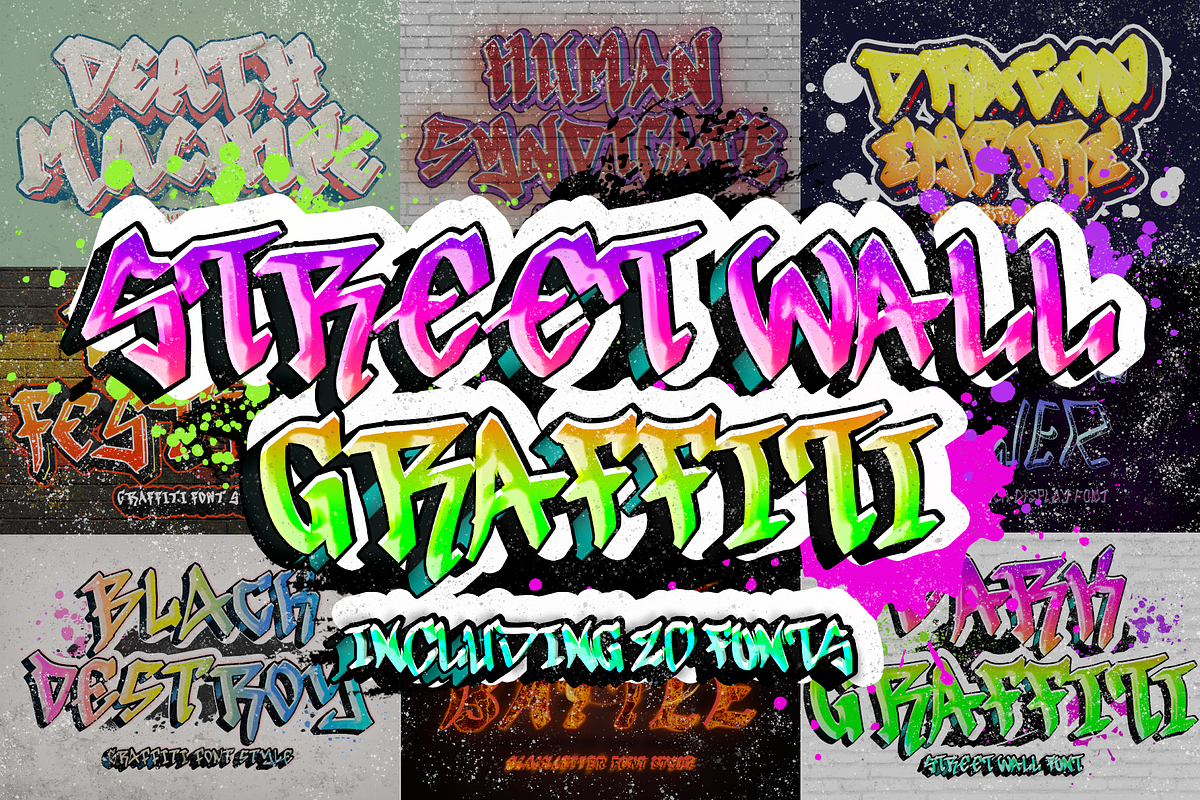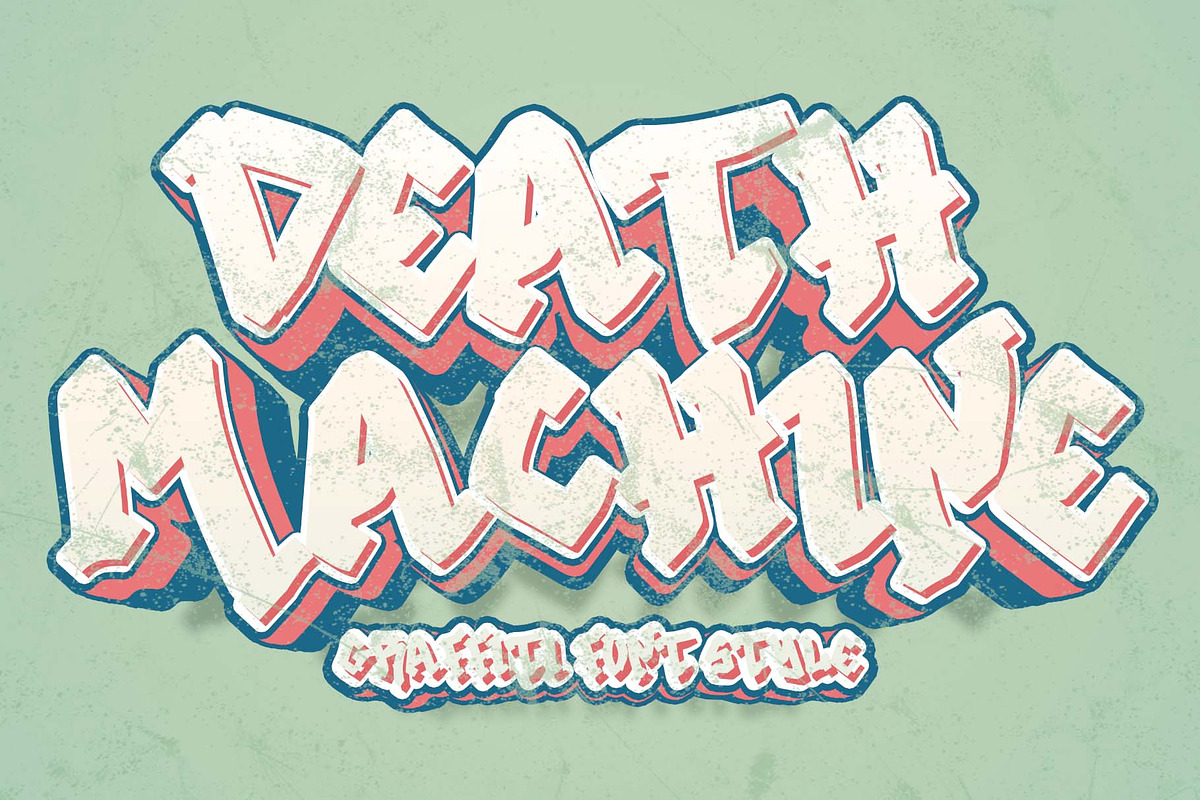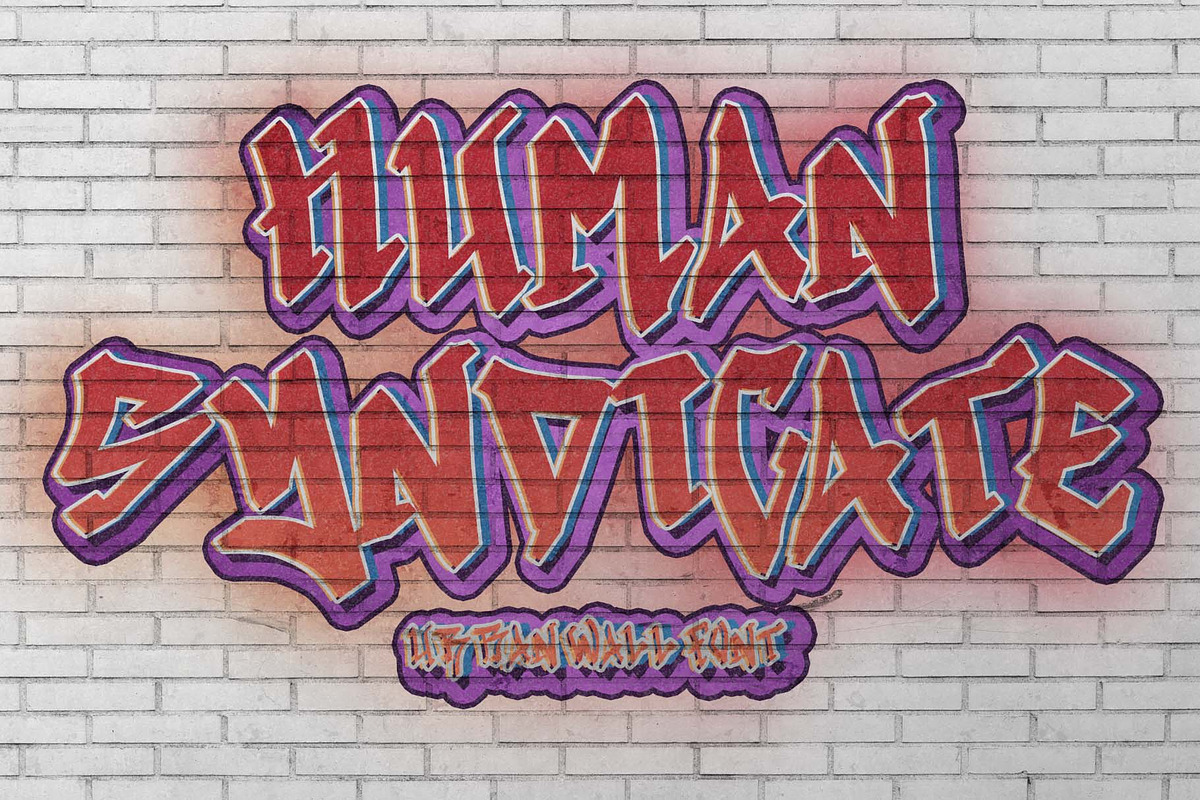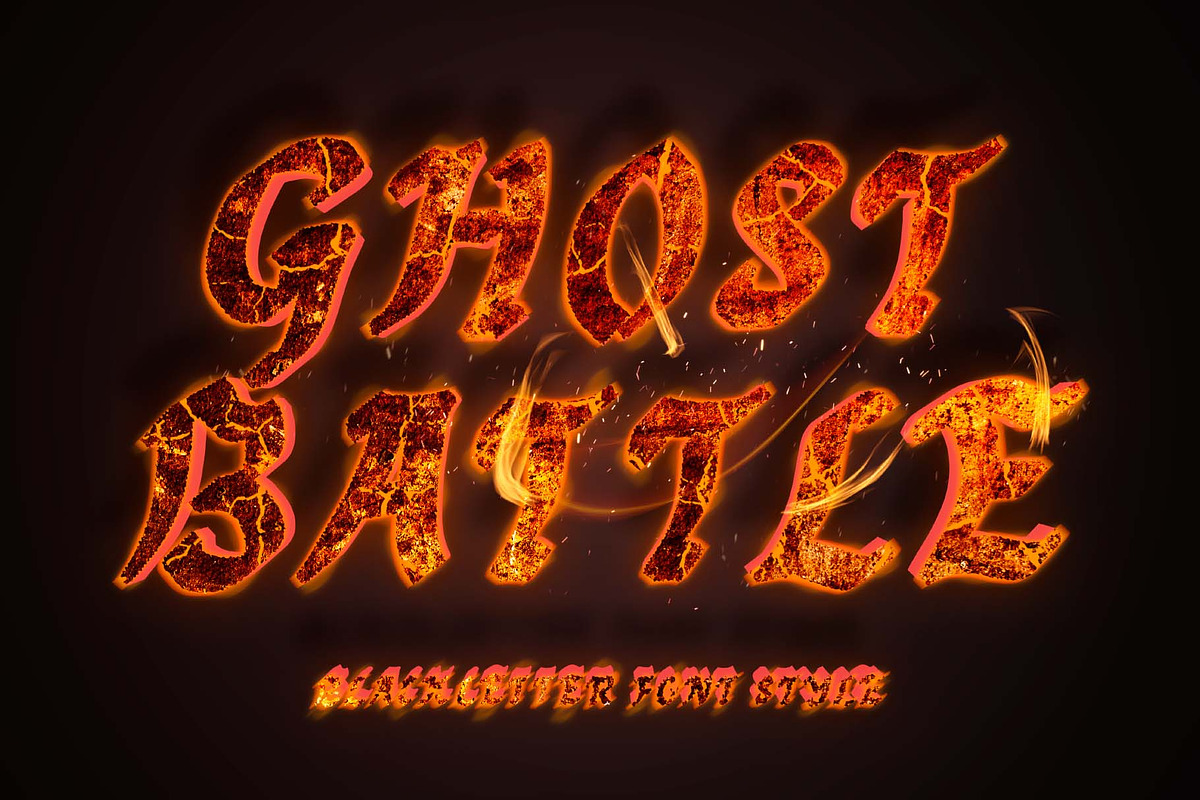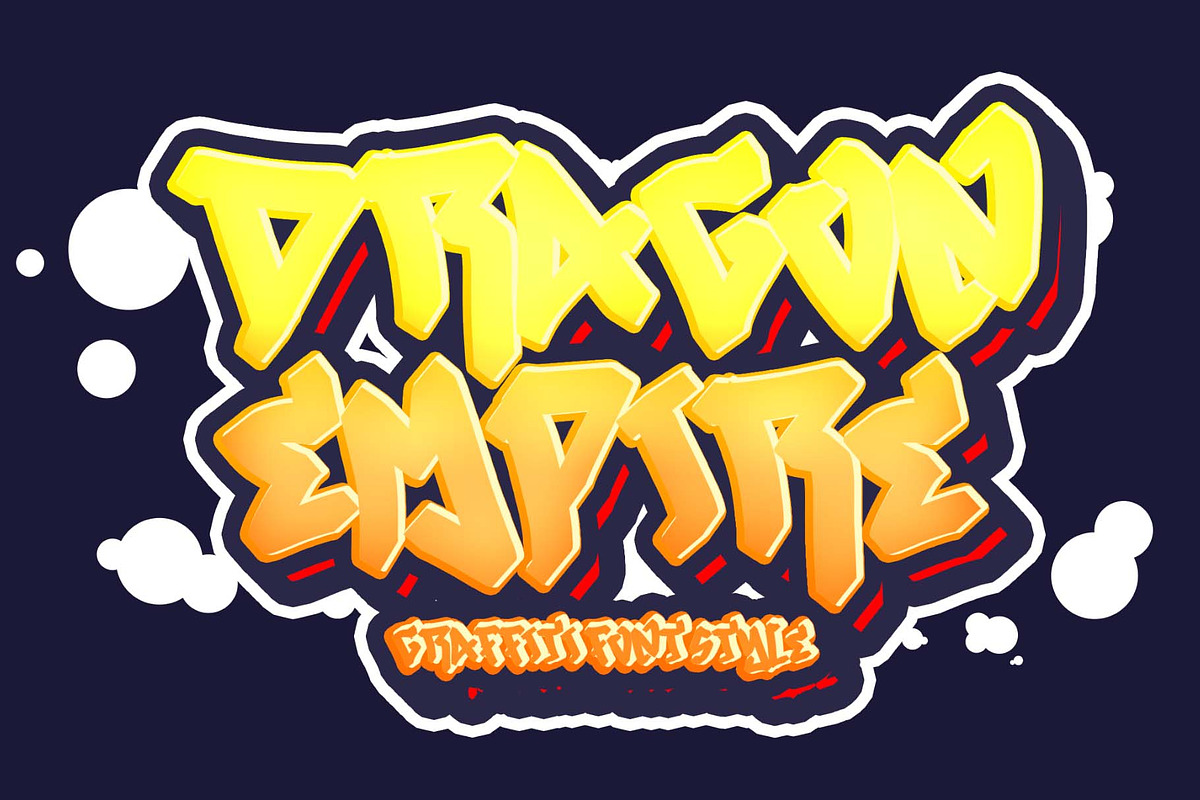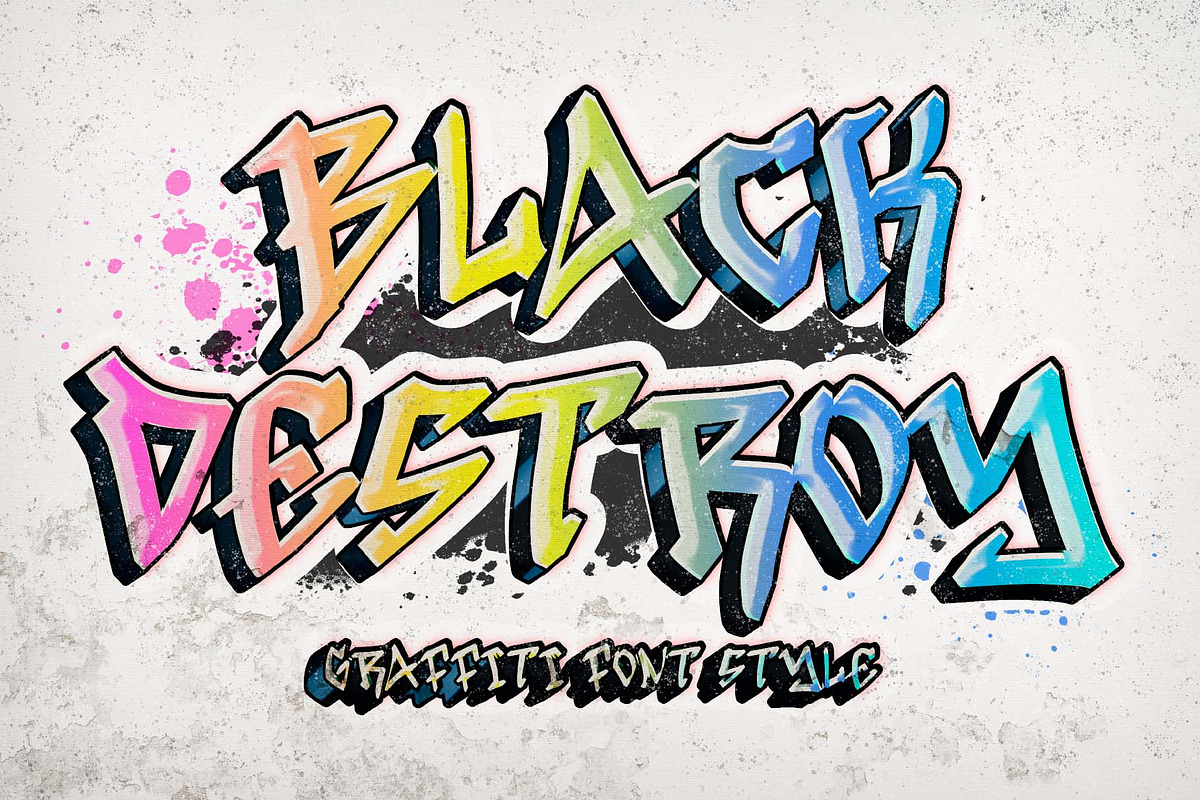
Street Wall Graffiti Font Bundle
This set includes 20 Graffiti Fonts !!!!!! 1.Panther Fighter
- Black Combat
- Astrab
- Greztro
- Death Demon
- Galaxy Power
- Horror Monster
- Wayang Jawa
- Black Mortal
- Zombie Predator
- Death Machine
- Dragon Empire
- Human Syndicate
- Black Destroy
- Ghost Battle
- The Gallant
- Death Festival
- Anabela Christmas
- Dark Graffiti
- With Christmas
This bundle is perfect for a variety of projects such as wall art, street art, mural, christmas, designs, branding, logos, invitations, stationery, social media posts, advertisements, product packaging, product designs, labels, photography, halloween and others.